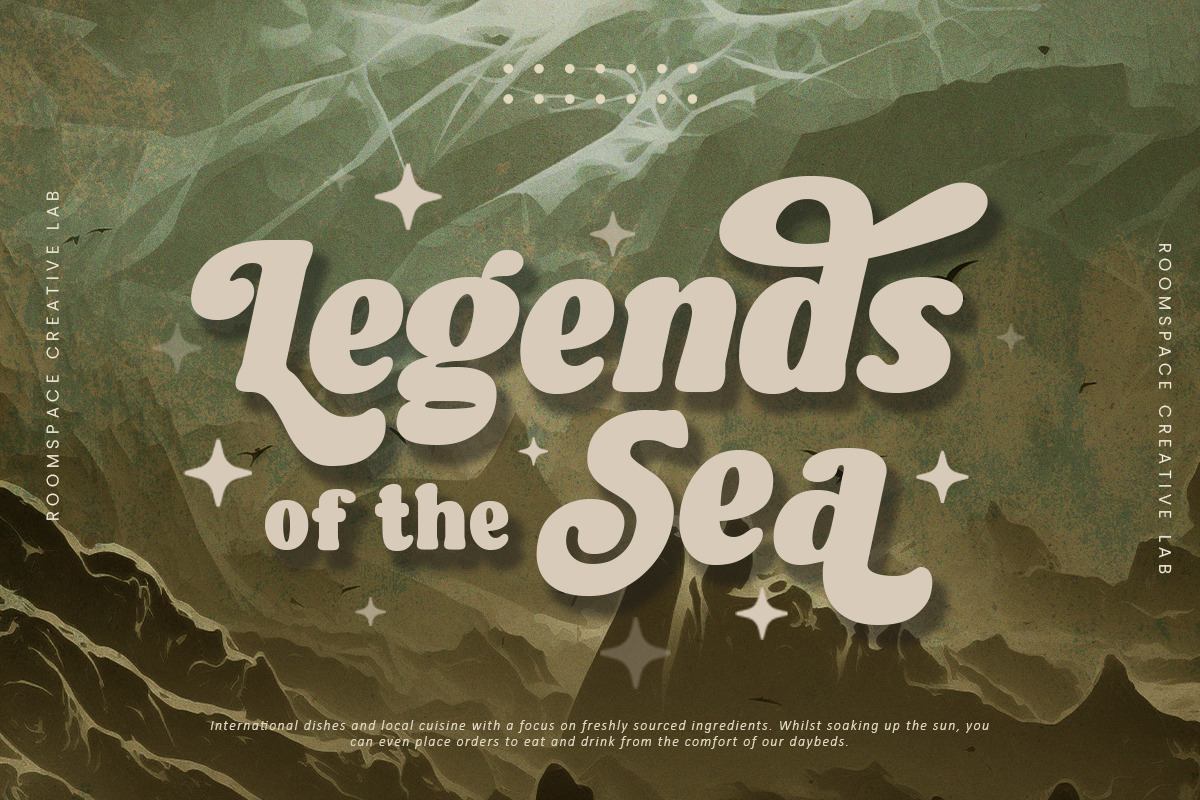
Legends of the Sea - Rounded Vintage Free Download
Legends of the Sea – Rounded Vintage Font Free Download is a nautical-inspired typeface with soft edges and a retro flair, perfect for vintage logos, packaging, apparel, and adventure-themed branding. Its rounded forms and weathered style bring a timeless, seafaring charm to any design. Please note that you must purchase this font for commercial use, but it is available as a free download for testing purposes. Set sail on your next creative journey with Legends of the Sea – Rounded Vintage Font Free Download, and let your typography echo stories of the ocean.